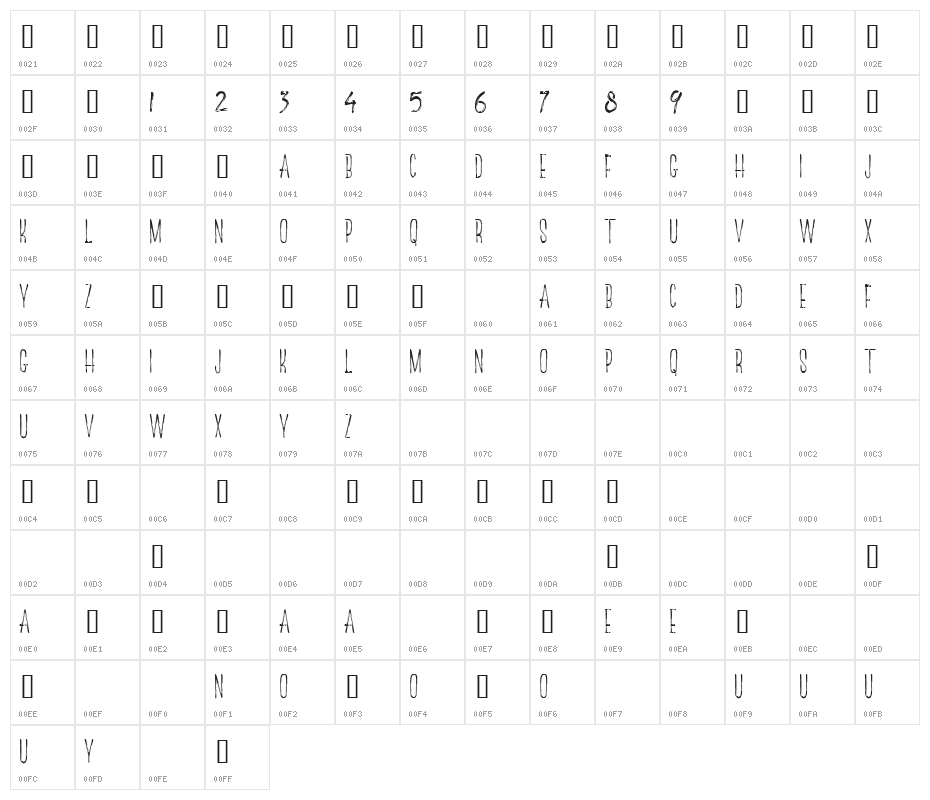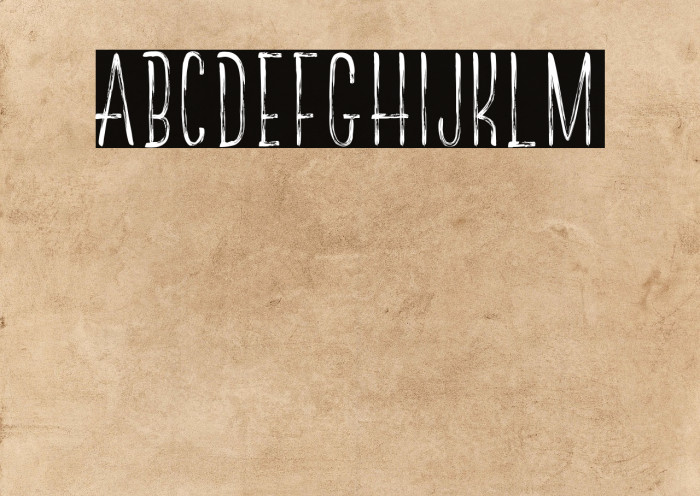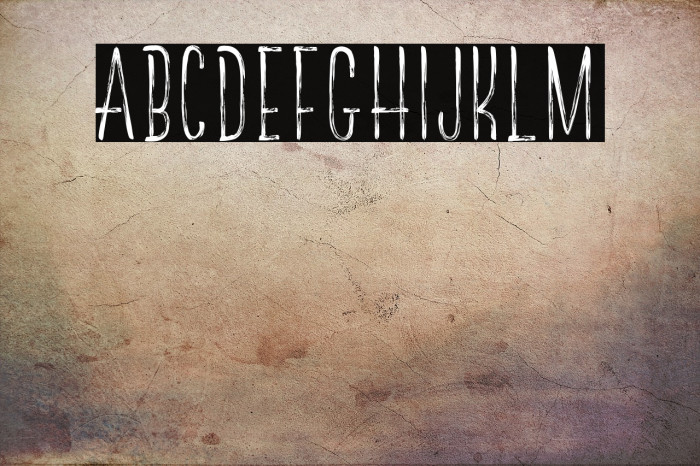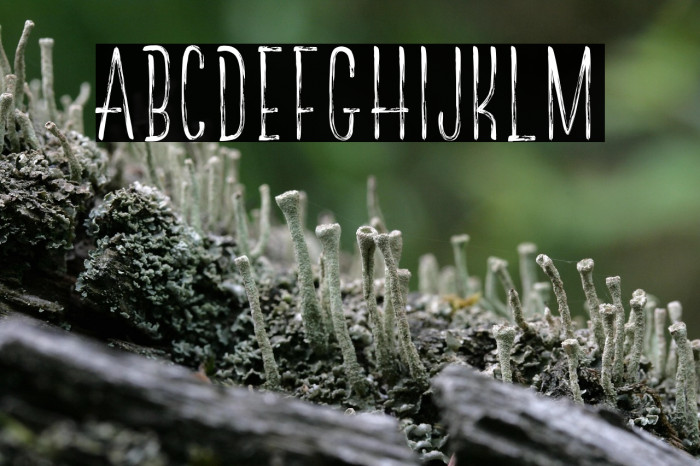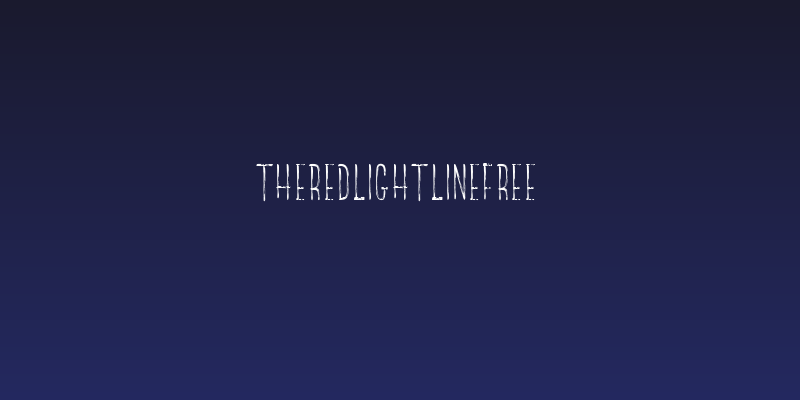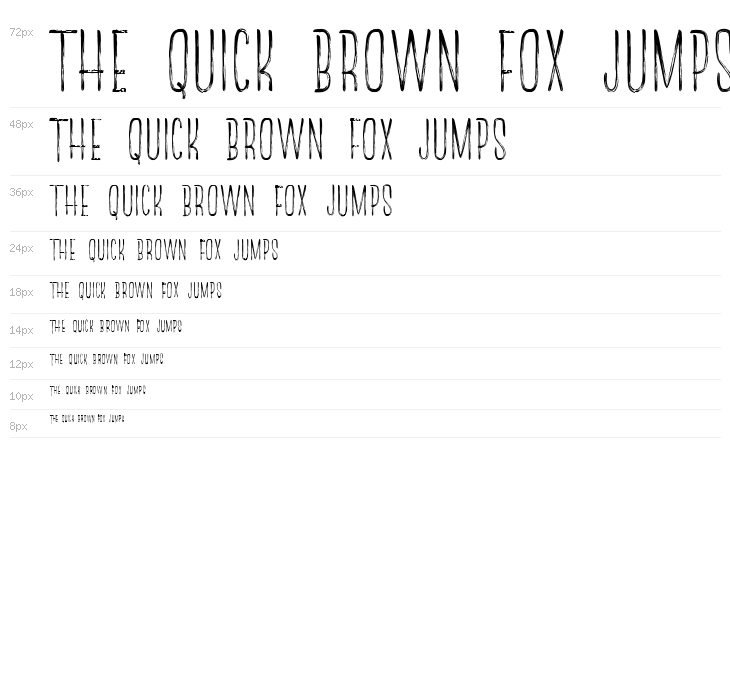
TheRedlightLineFree Font
TheRedlightLineFree Description
This font features a distressed, textured appearance, giving it a worn and vintage feel. The characters are tall and narrow, with a hand-drawn quality that adds to its rustic charm. The uppercase and lowercase letters maintain a consistent style, with slight variations in texture that enhance its organic look. The numbers follow the same design principles, ensuring uniformity across all characters. This font is ideal for projects that require a touch of nostalgia or a handcrafted aesthetic.
| Width | Condensed |
| Overall Style | Vintage |
| Use Case | Logos, Headlines, Posters |
| Proposed Projects | Ideal for vintage posters, rustic branding, handcrafted product labels, and artistic book covers. |